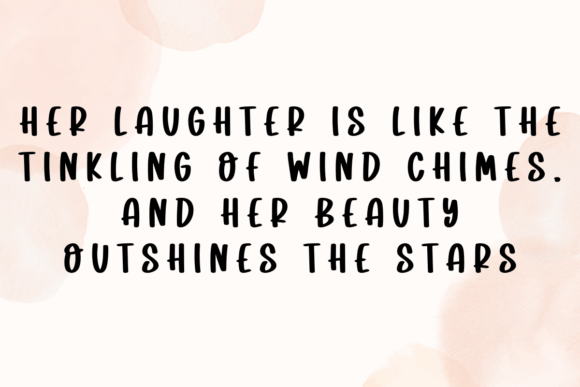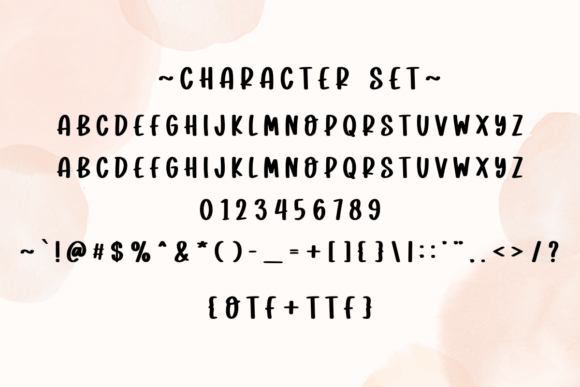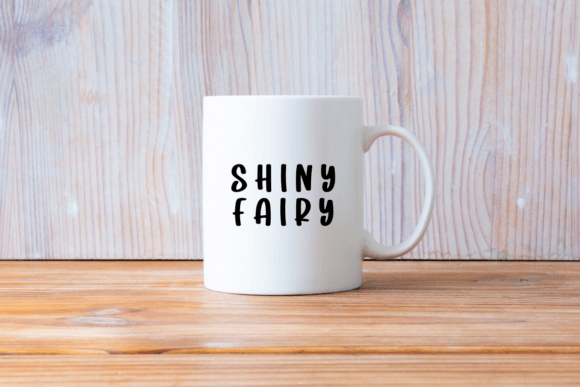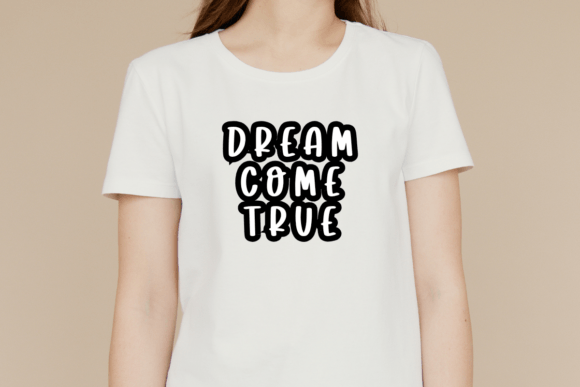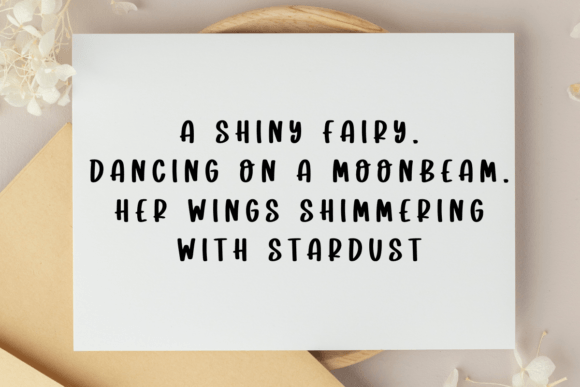
Introduction to Shiny Fairy Font
Have you ever found yourself staring at a blank canvas, struggling to bring your creative vision to life? For designers, this moment can be daunting, but with the right tools, it can be a thrilling opportunity to unleash your imagination. That’s exactly what happens when you stumble upon the perfect font – and that’s where the Shiny Fairy Font comes in.
This delightful sans serif font is a game-changer for any design project that requires a touch of whimsy and fun. With its high-quality design and transparent background, it’s the perfect addition to any creative project that needs a little extra sparkle. Whether you’re working on a retro-themed design or a cute and bubbly graphic, the Shiny Fairy Font is sure to bring a smile to your face and a pop of color to your design.
Key Features of Shiny Fairy Font
- High-quality design resource perfect for creative projects, offering a unique and magical touch.
- Unique characteristics include intricate details, elegant lines, and a touch of whimsy, making it perfect for fairy-themed designs, children’s books, and other creative projects.
- Includes a range of font styles, from bold and playful to delicate and cursive, providing endless possibilities for designers and artists.
Honest Review: Shiny Fairy Font
I recently came across the Shiny Fairy Font, and I must say it’s a delightful addition to any design resource library. As a designer, I appreciate high-quality fonts that can elevate a creative project to the next level.
- ✨ Unique and whimsical design that’s perfect for adding a touch of magic to your projects
While the Shiny Fairy Font excels in many areas, there are a few limitations to consider:
- ⚠️ Limited character set, which may not be suitable for long-form text projects
- ⚠️ Some users may find the font’s whimsical nature to be overwhelming or difficult to read at small sizes
Overall, I’m impressed with the Shiny Fairy Font and would recommend it for designers looking for a unique and creative solution. Its high-quality design and transparent background make it a valuable asset for any design project. Just be mindful of its limitations and use it thoughtfully in your designs.
Tips for Getting the Most Out of Shiny Fairy Font
Combine the font with other design elements to create a unique and creative project.
Shiny Fairy Font is perfect for creative projects, such as:
Children’s birthday party decorations
Marketing materials and advertisements